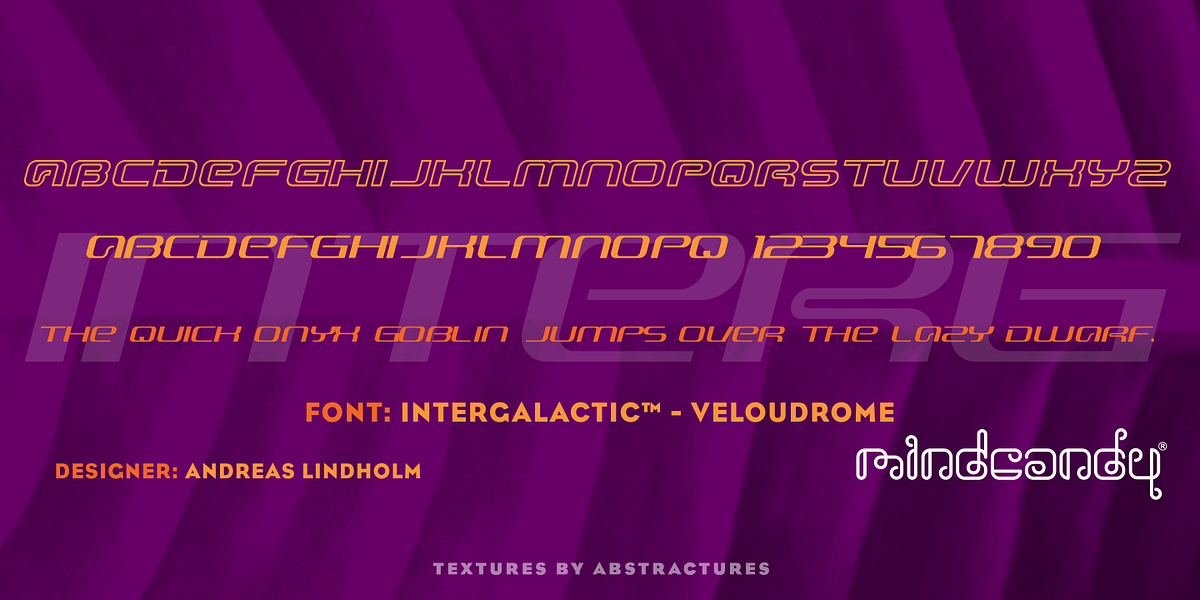
Intergalactic™
This retrofuturistic sans serif font evokes the visual language of 1980s science fiction. Its all-caps design and bold style make it ideal for headlines, branding elements, and posters seeking a playful yet futuristic aesthetic.